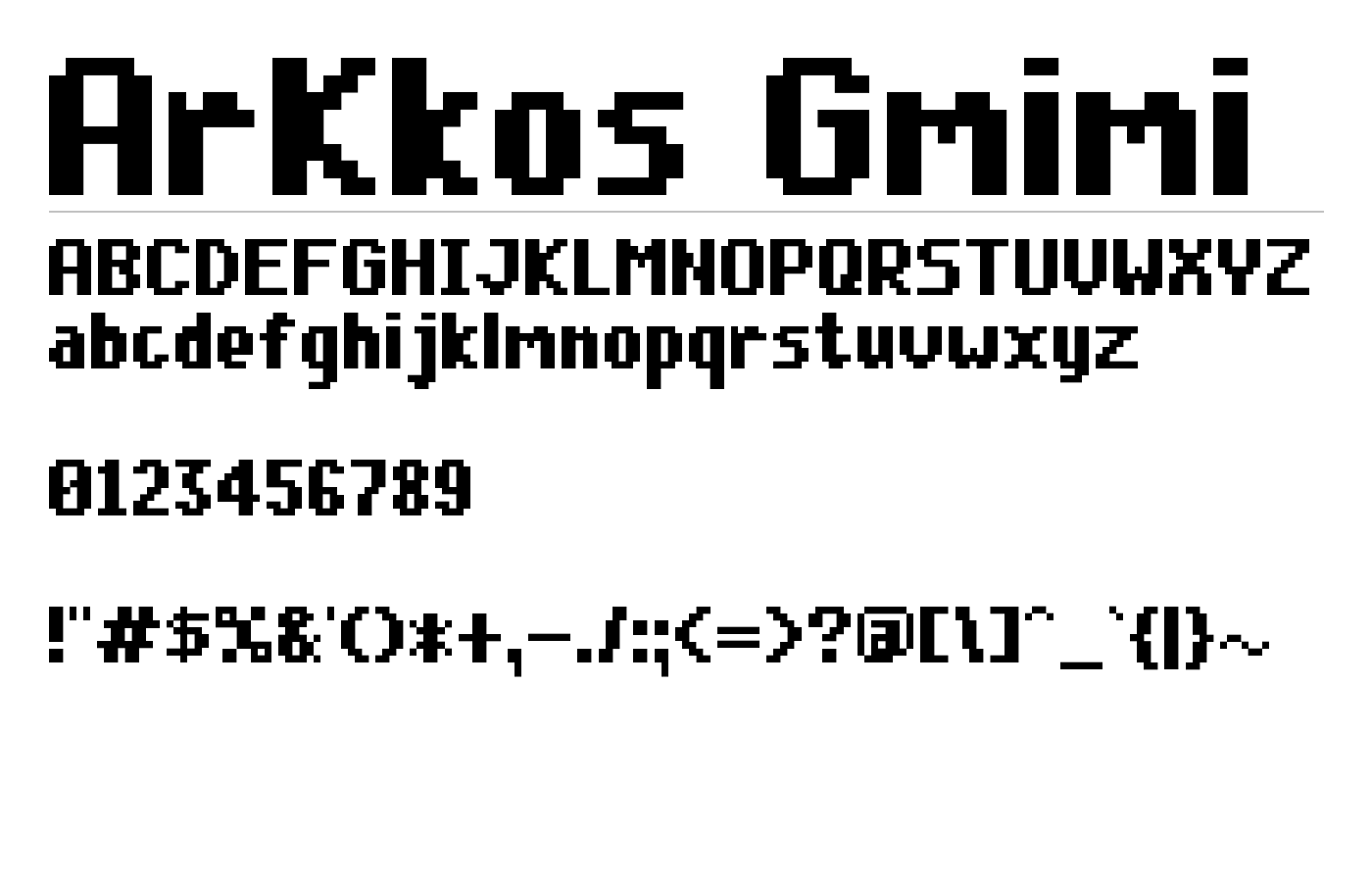
ArKkos Gmimi is a pixel-style, sans serif font with a bold, blocky appearance reminiscent of retro digital displays or video games. Its consistent stroke weight and squared edges give it a distinctly modern and tech-inspired feel, making it ideal for digital-themed designs, gaming interfaces, and creative projects that want to evoke nostalgia or a futuristic vibe. This font works best in headlines, logos, and any context where a strong, pixelated aesthetic is desired.
ArKkos Gmimi Font
About ArKkos Gmimi Font